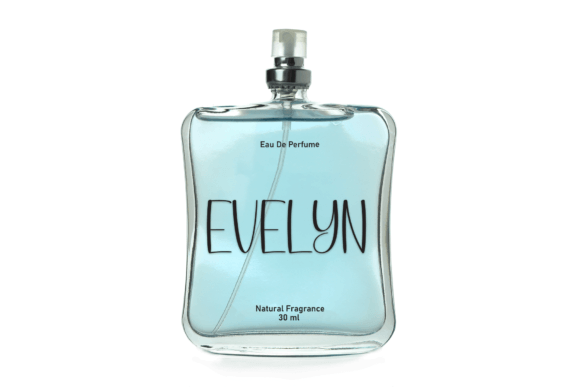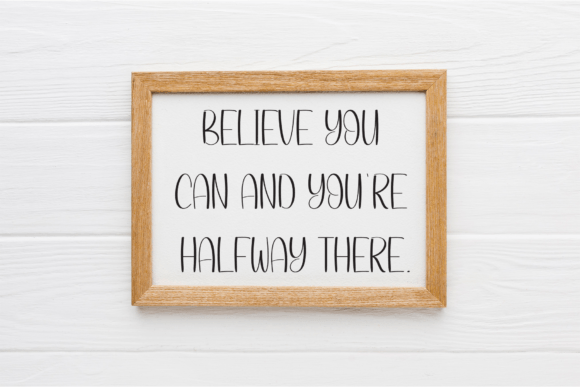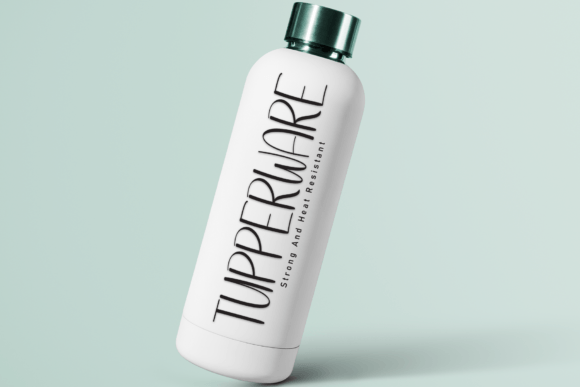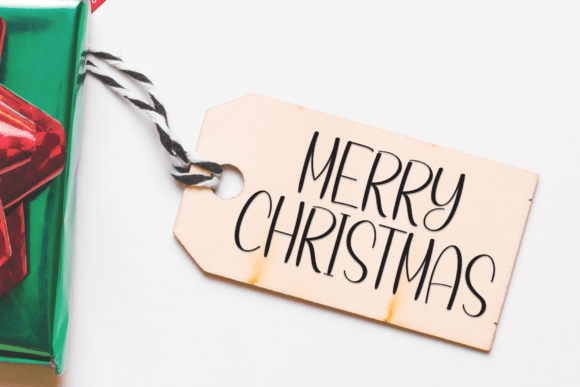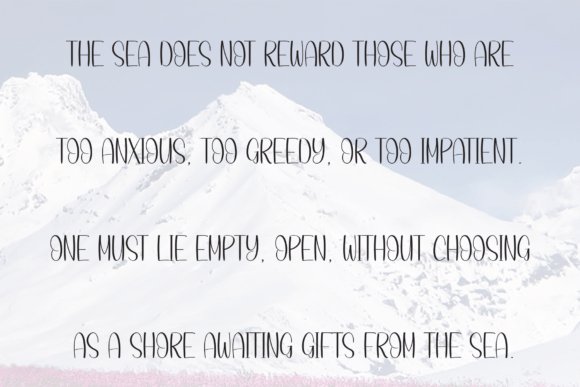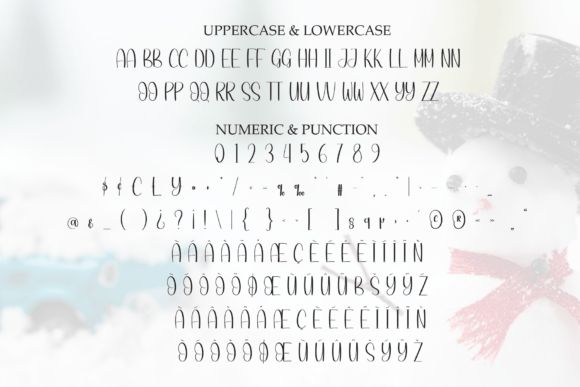
When Words Need a Winter Wonderland Touch
Have you ever stared at a blank page, struggling to find the perfect font to convey the whimsy and magic of the season? As designers, we’ve all been there – searching for that special something to make our winter-themed projects sparkle. Whether it’s a holiday card, a wedding invitation, or a festive social media post, the right font can make all the difference.
Enter Careful Snowman Font, a delightful handwritten font that’s sure to bring a smile to your audience’s faces. This charming font is designed to add a touch of warmth and friendliness to your designs, making it perfect for any project that needs a fun and playful vibe. For designers, the Careful Snowman Font is a valuable addition to any toolkit, offering a unique and eye-catching way to express the joy and wonder of the season.
Careful Snowman Font Key Features
- Font Style: A unique, handwritten font with a whimsical feel, perfect for winter-themed designs.
- Unique Characteristics: Features a distinctive, hand-drawn feel with intricate details and textures, adding a touch of personality to any design.
Review of Careful Snowman Font
The Careful Snowman Font is a charming and playful font that adds a touch of whimsy to any design. ✨ I appreciate the unique and hand-drawn feel of the font, which makes it perfect for projects that require a touch of personality. The font’s irregularities and imperfections also give it a handmade quality that is hard to replicate with more polished fonts. ✨ The font’s character set is comprehensive, covering a wide range of languages and special characters.
- ⚠️ The font’s readability can be a concern at smaller font sizes, as the irregularities can make it difficult to distinguish between certain characters.
- ⚠️ The font may not be suitable for projects that require a high level of professionalism or formality, as its playful nature may come across as unprofessional.
Overall, I think the Careful Snowman Font is a great choice for designers who want to add a touch of personality to their projects. While it may have some limitations, its unique character and charm make it a great addition to any design toolkit.
Use the Careful Snowman Font to add a whimsical touch to your designs. Experiment with different font sizes, colors, and combinations to create a unique look. This font is particularly suitable for winter-themed designs, children’s books, and educational materials.
The Careful Snowman Font is commonly used in:
– Winter-themed designs and invitations
– Children’s books and educational materials
– Holiday cards and gift tags
– Social media graphics and advertisements
Q: What is the recommended line spacing for the Careful Snowman Font?
The recommended line spacing for the Careful Snowman Font is 1.2-1.5 times the font size. This will help maintain readability and prevent the text from becoming too crowded or difficult to read.